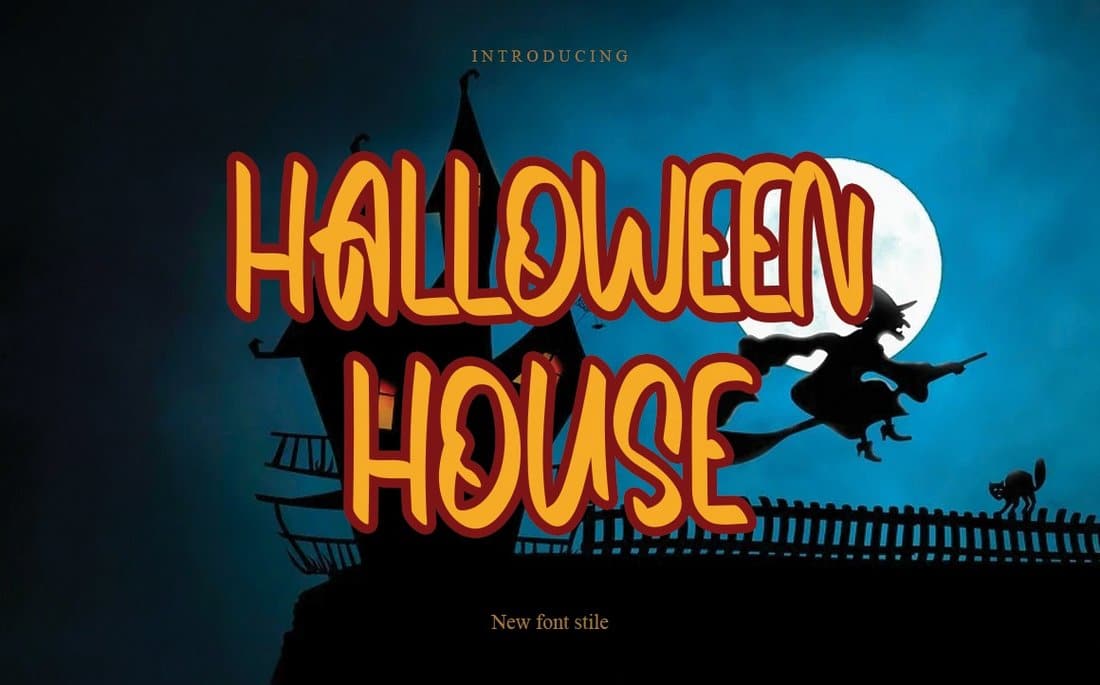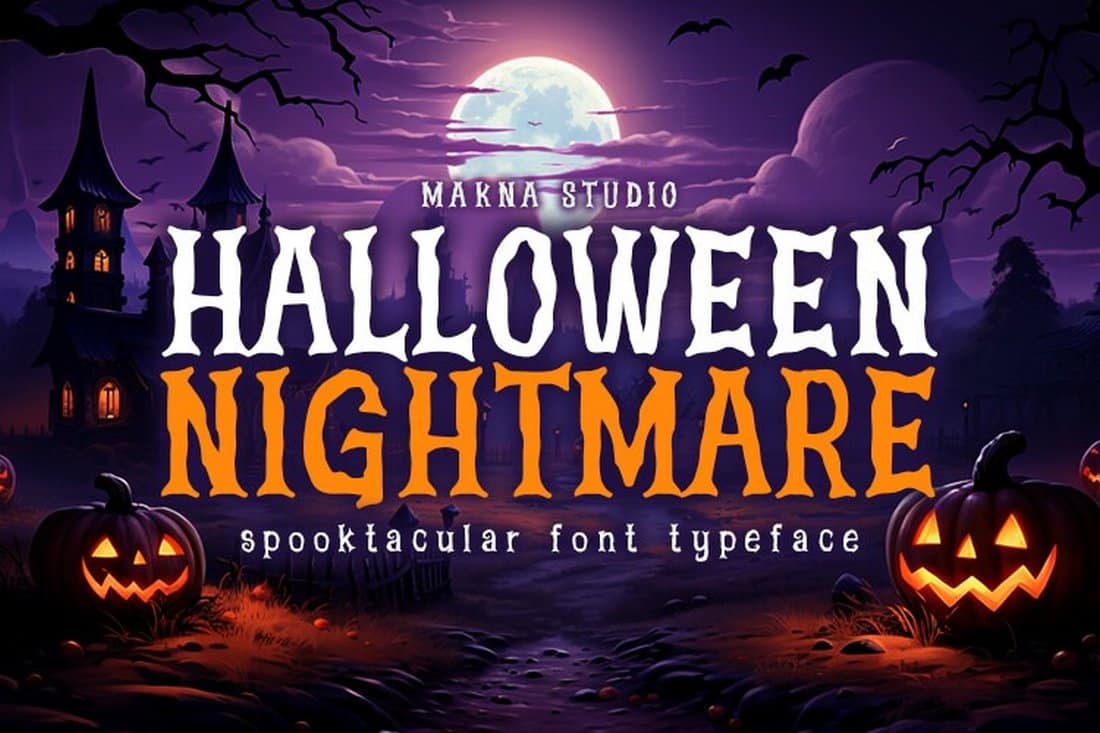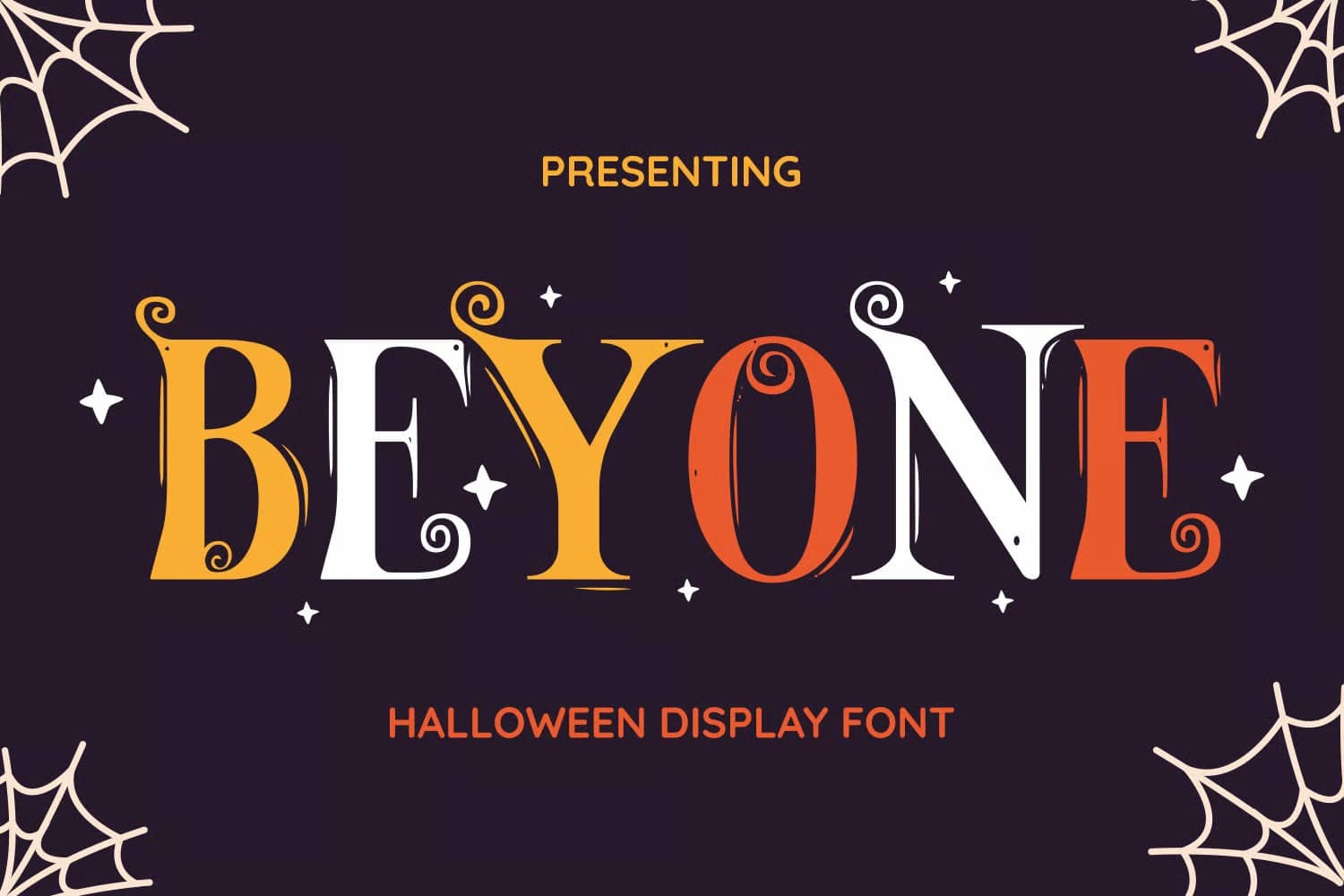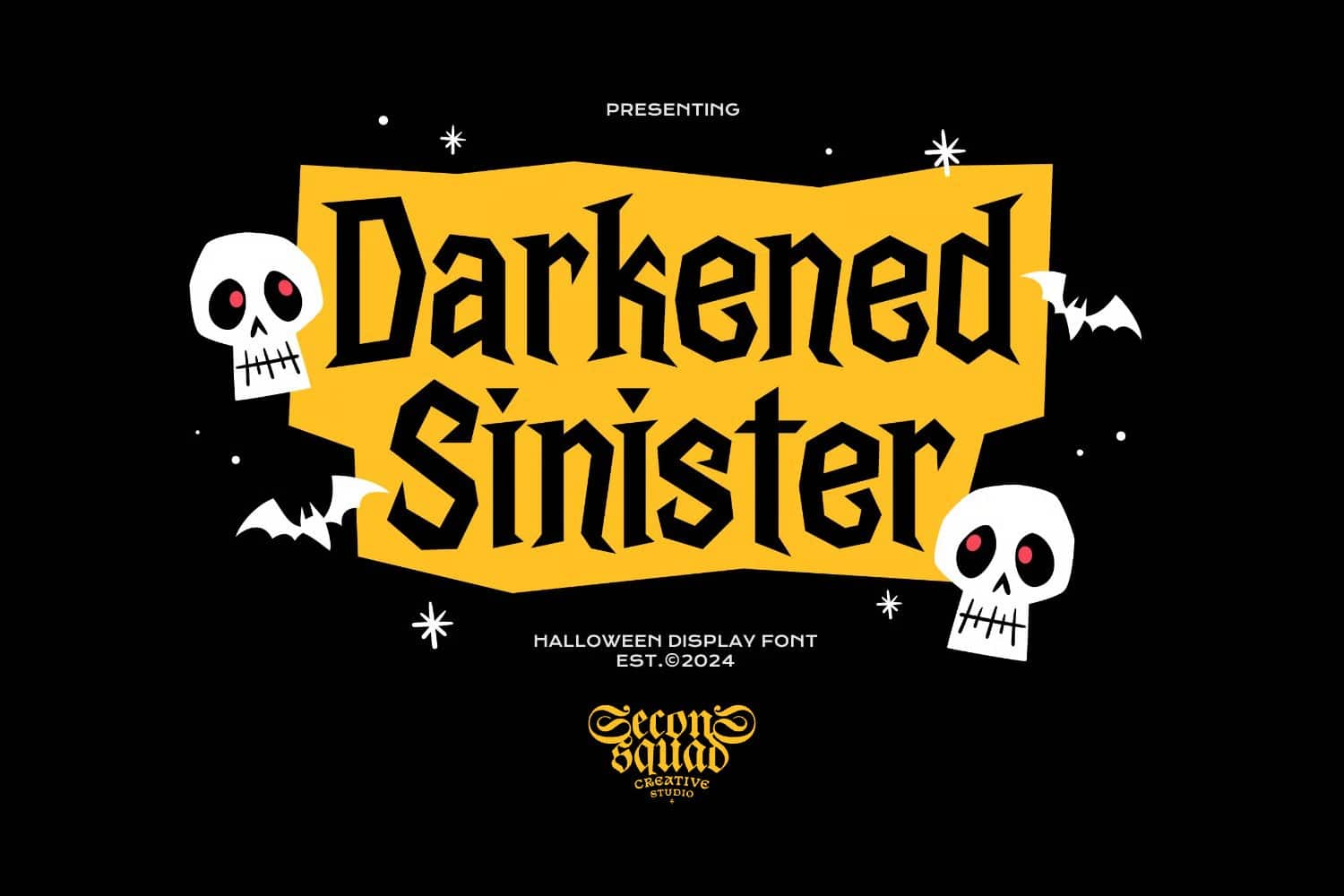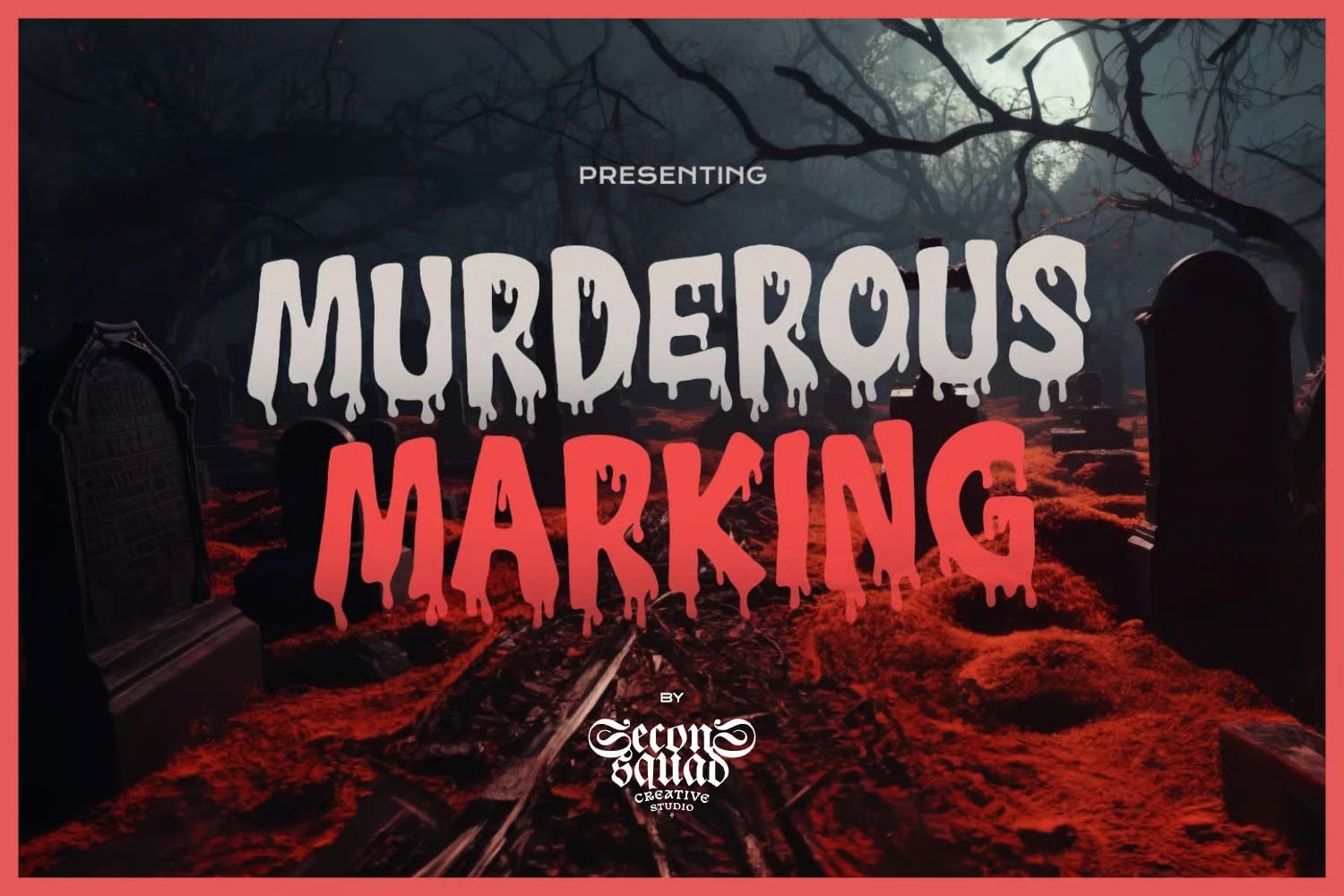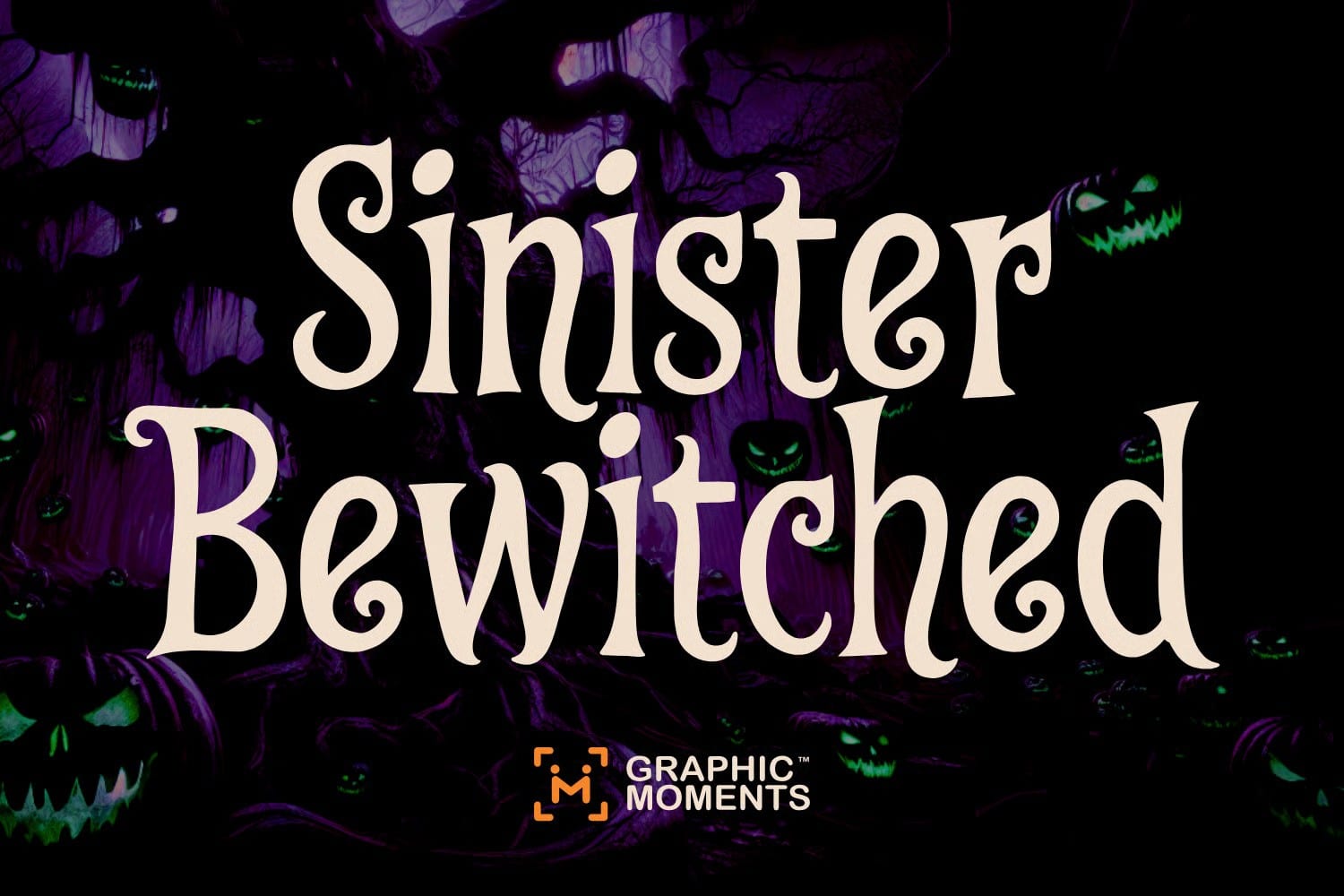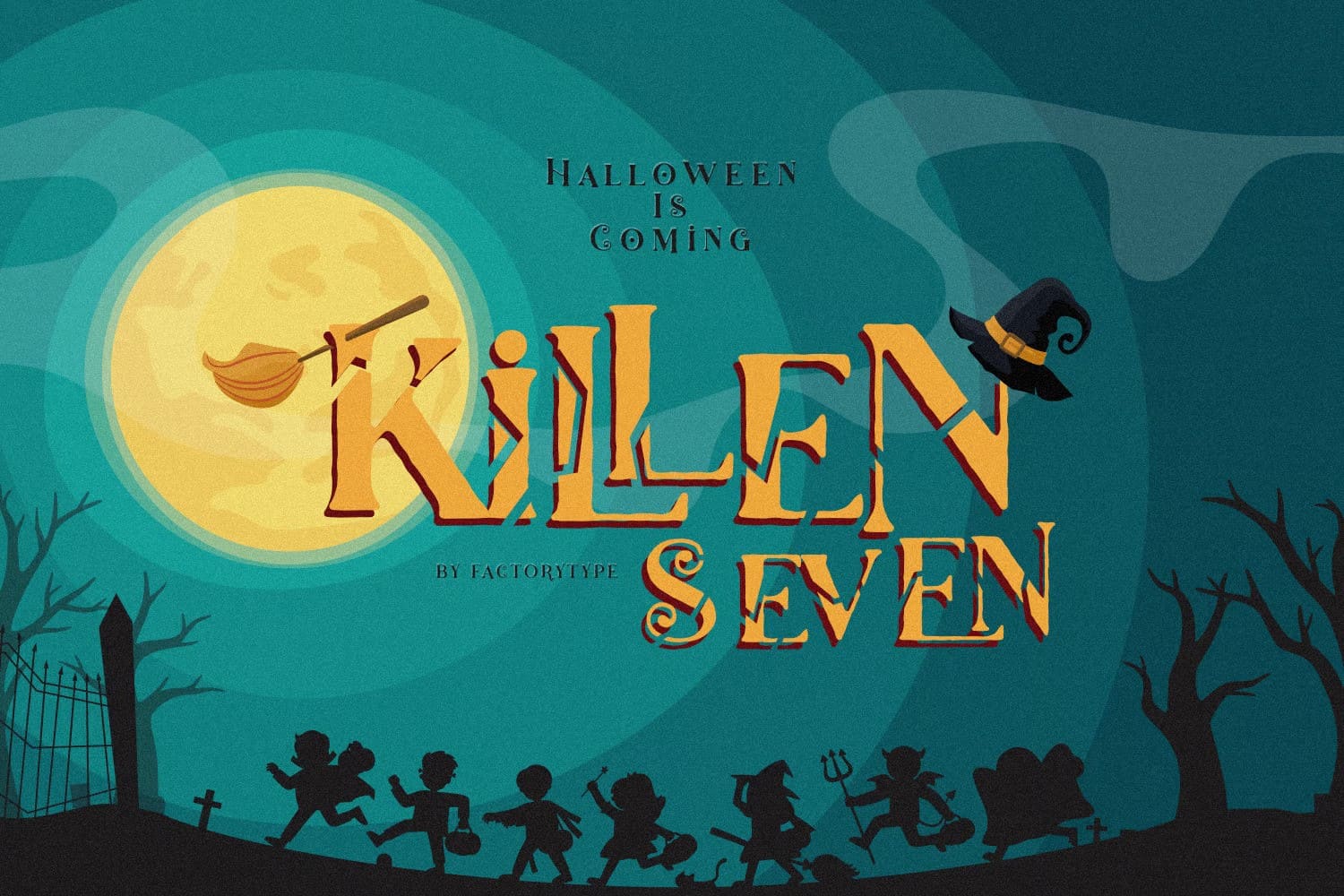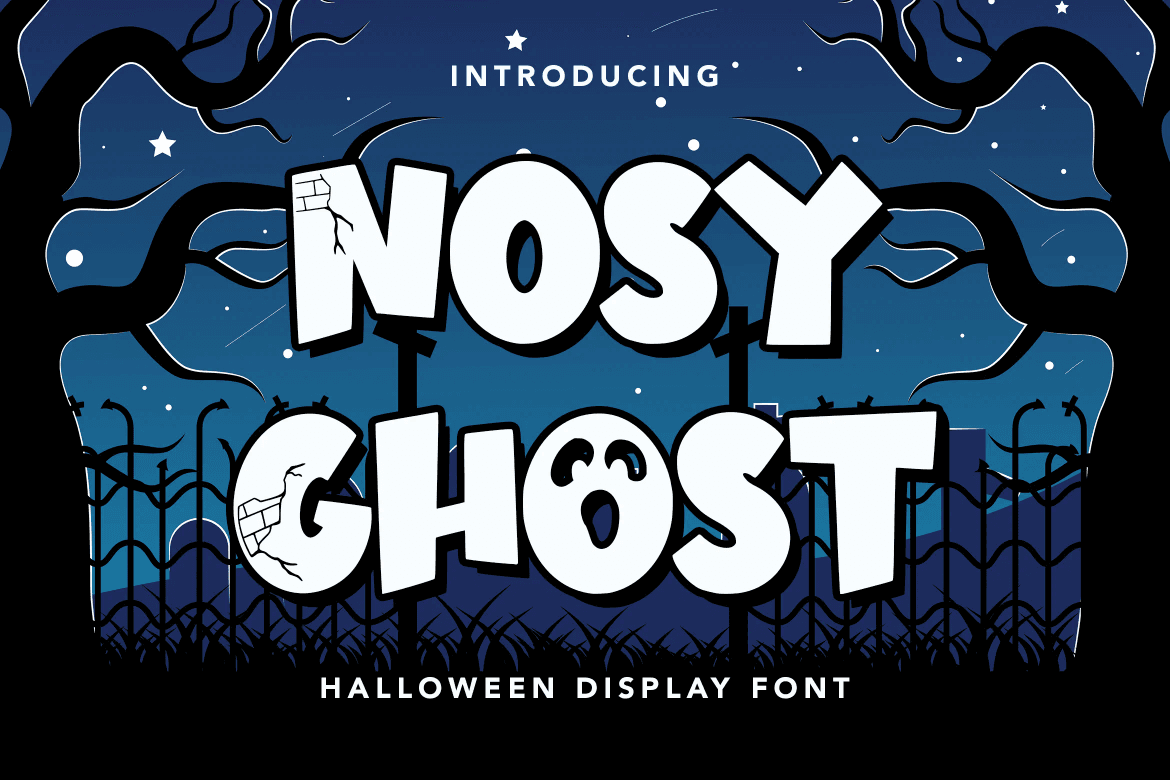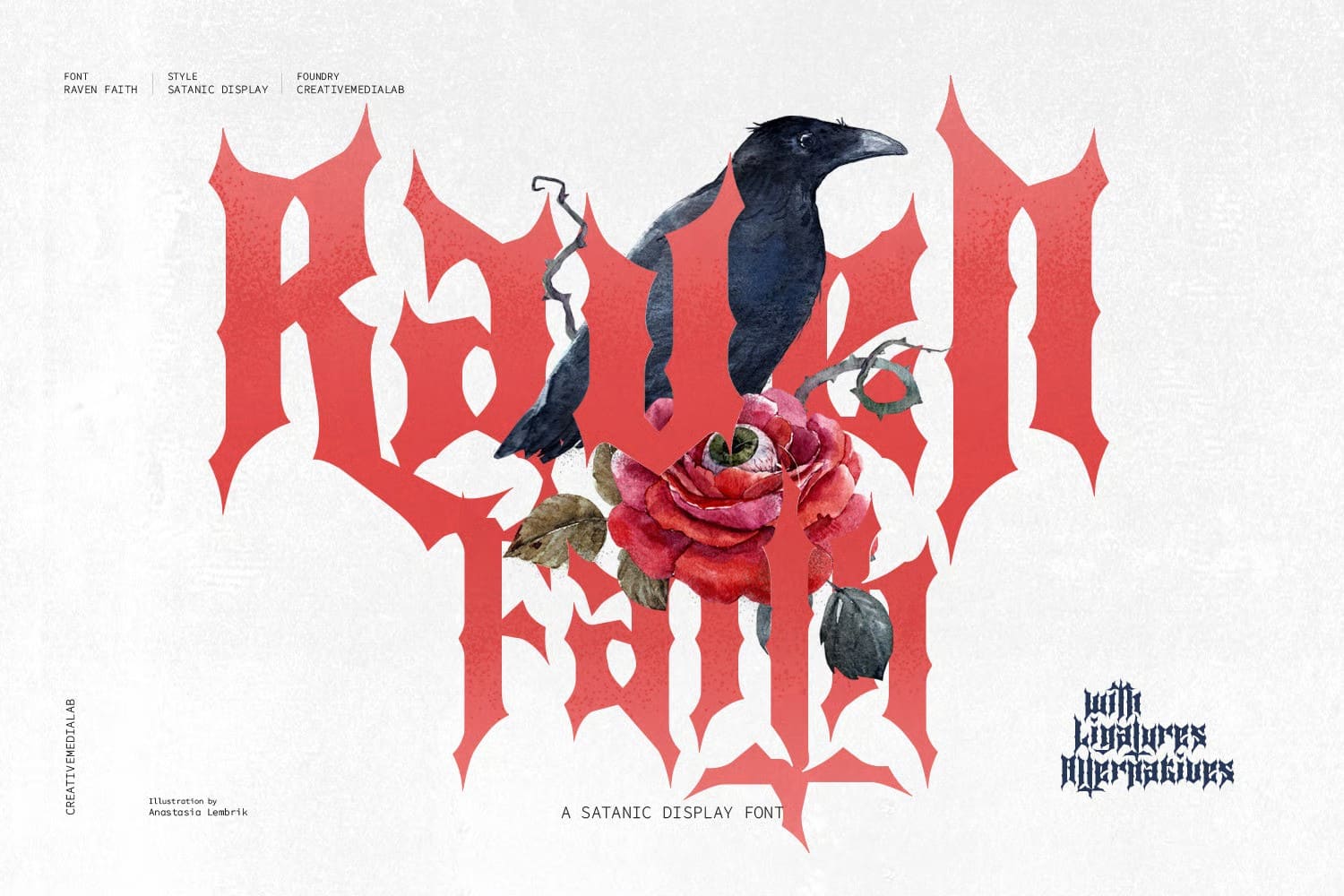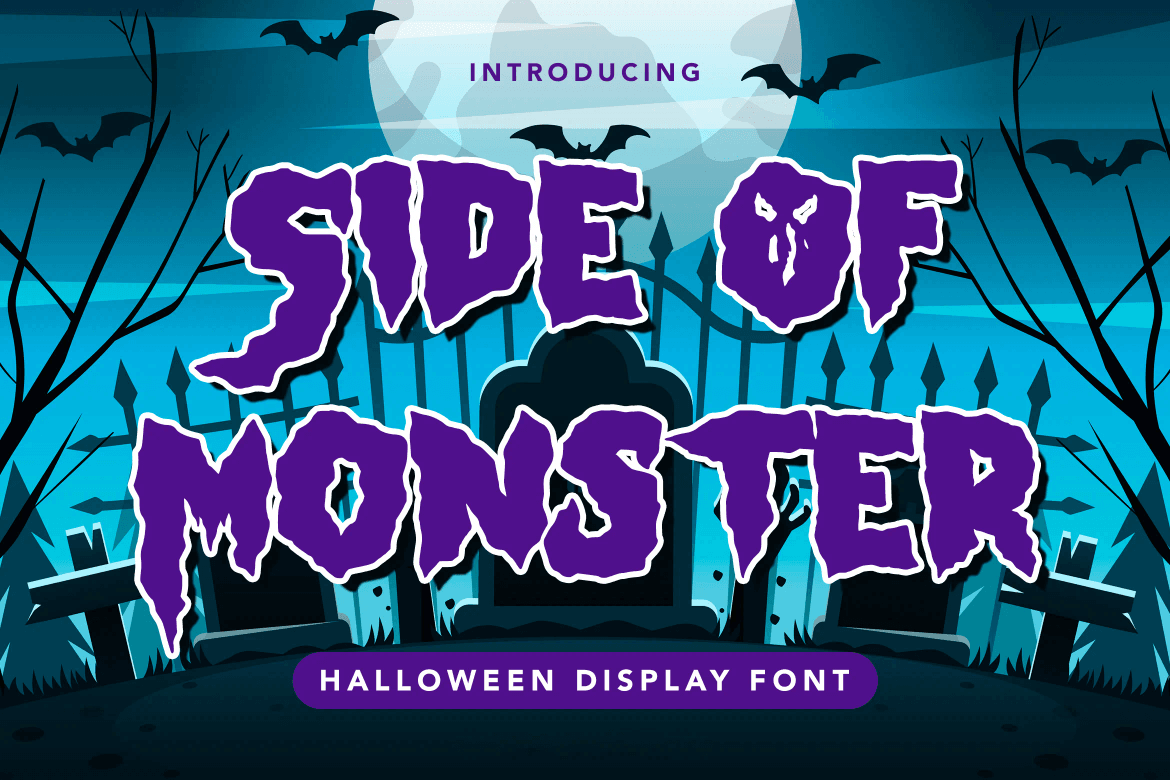
35 Creepy Halloween fonts to haunt your designs
There's nothing quite like the perfect Halloween font that turns an ordinary design into something absolutely bone-chilling.
Halloween fonts need no introduction, they are truly scary and create that terrifying atmosphere that we want to convey in our designs. Some of them are just plain funny and cute, but we haven’t gotten to the most terrifying fonts that can literally scare you.